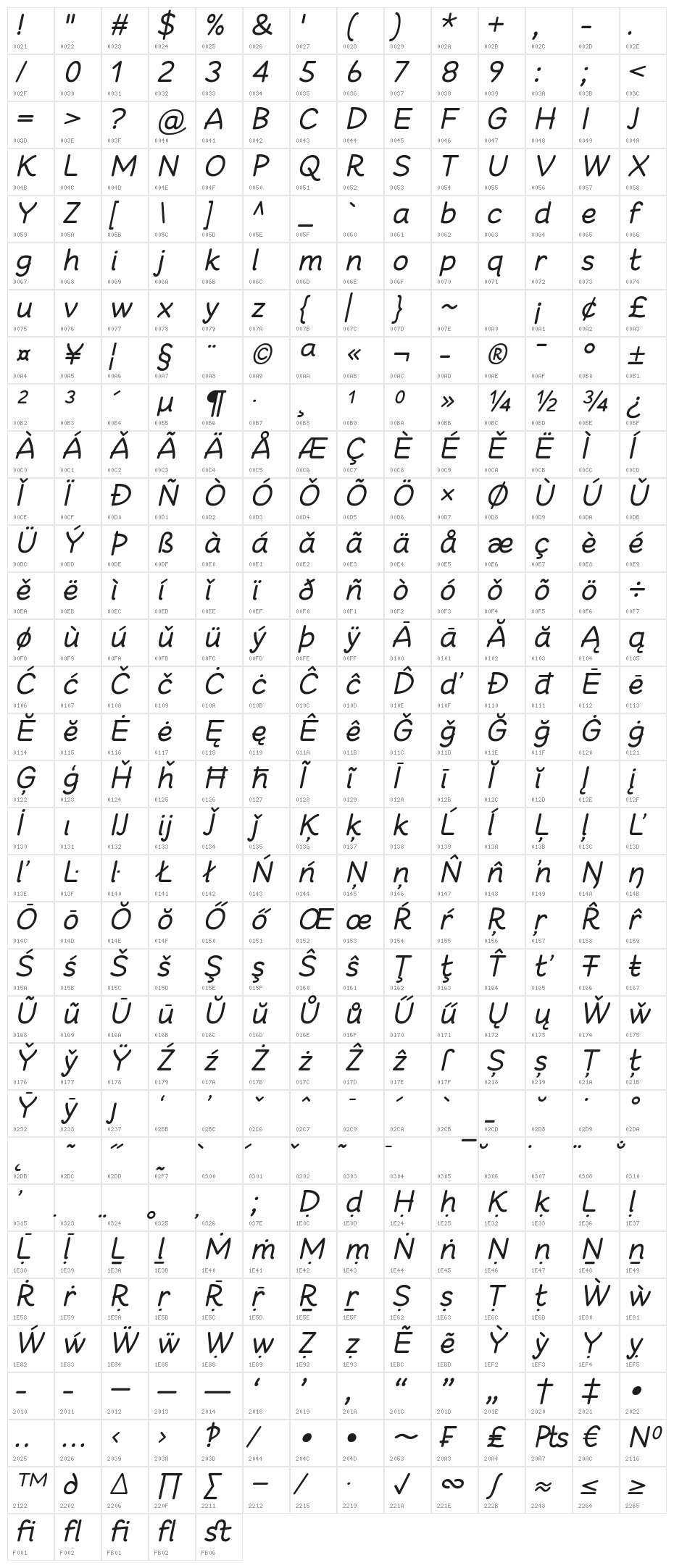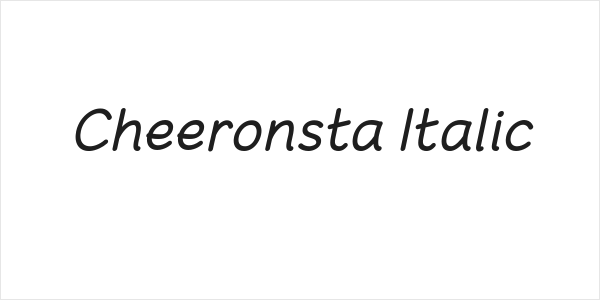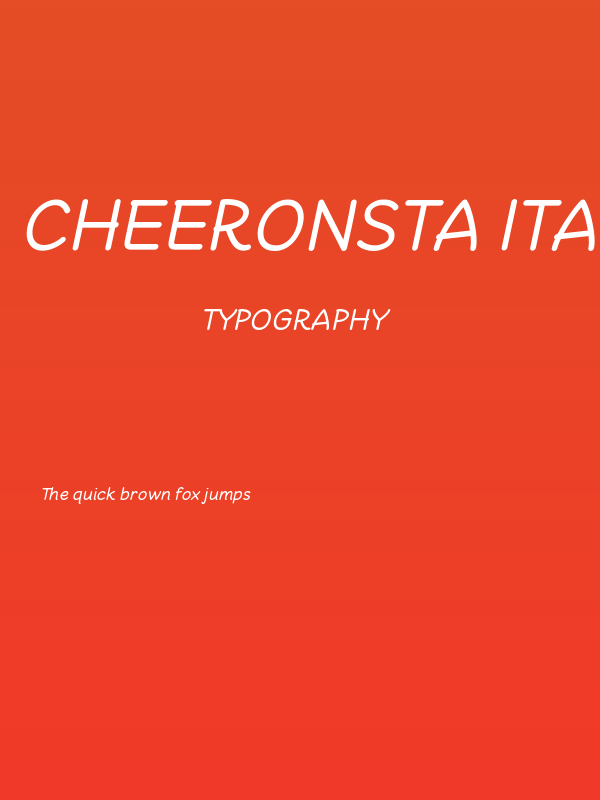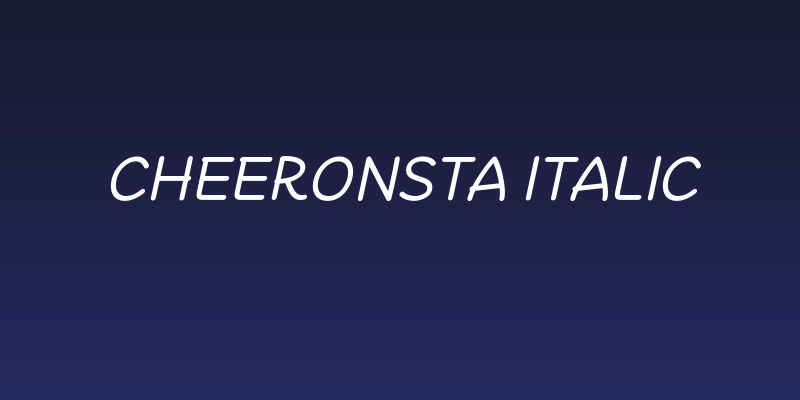
Cheeronsta Italic Font
Cheeronsta Italic Description
This font features a smooth, flowing style with a slight slant, giving it an elegant and dynamic appearance. The characters are well-proportioned, with a consistent stroke width that maintains readability while adding a touch of sophistication. The uppercase letters are bold and confident, while the lowercase letters have a friendly, approachable feel. The numerals are clear and distinct, making them easy to read. Special characters are designed with the same fluidity, ensuring a cohesive look across all text. This font is versatile, suitable for both formal and informal contexts, and can be used to add a personal touch to any project.